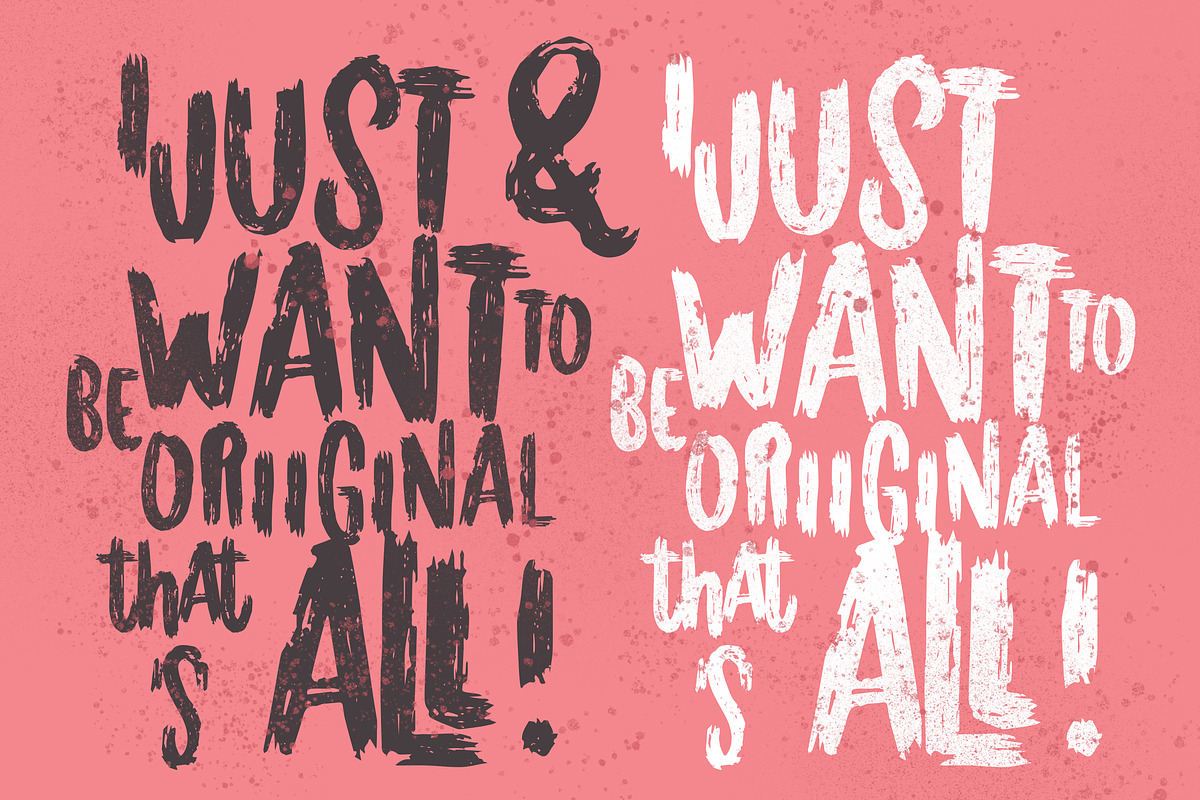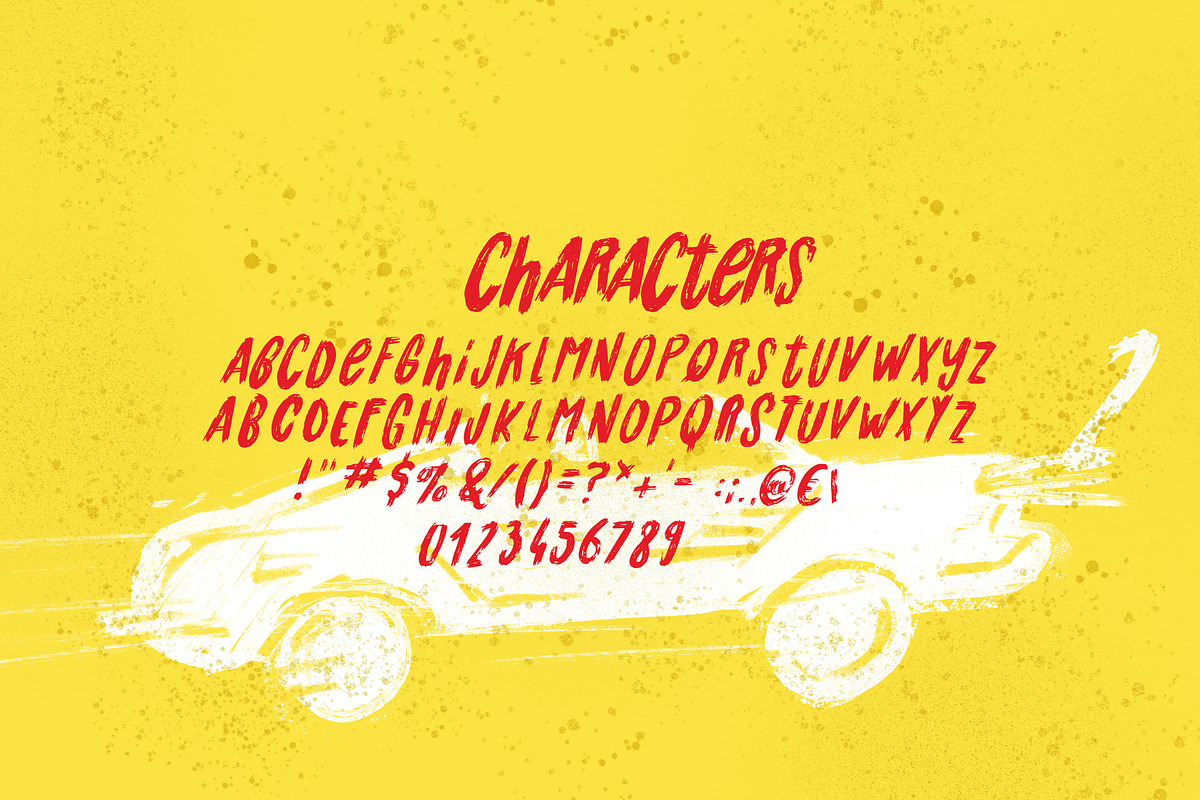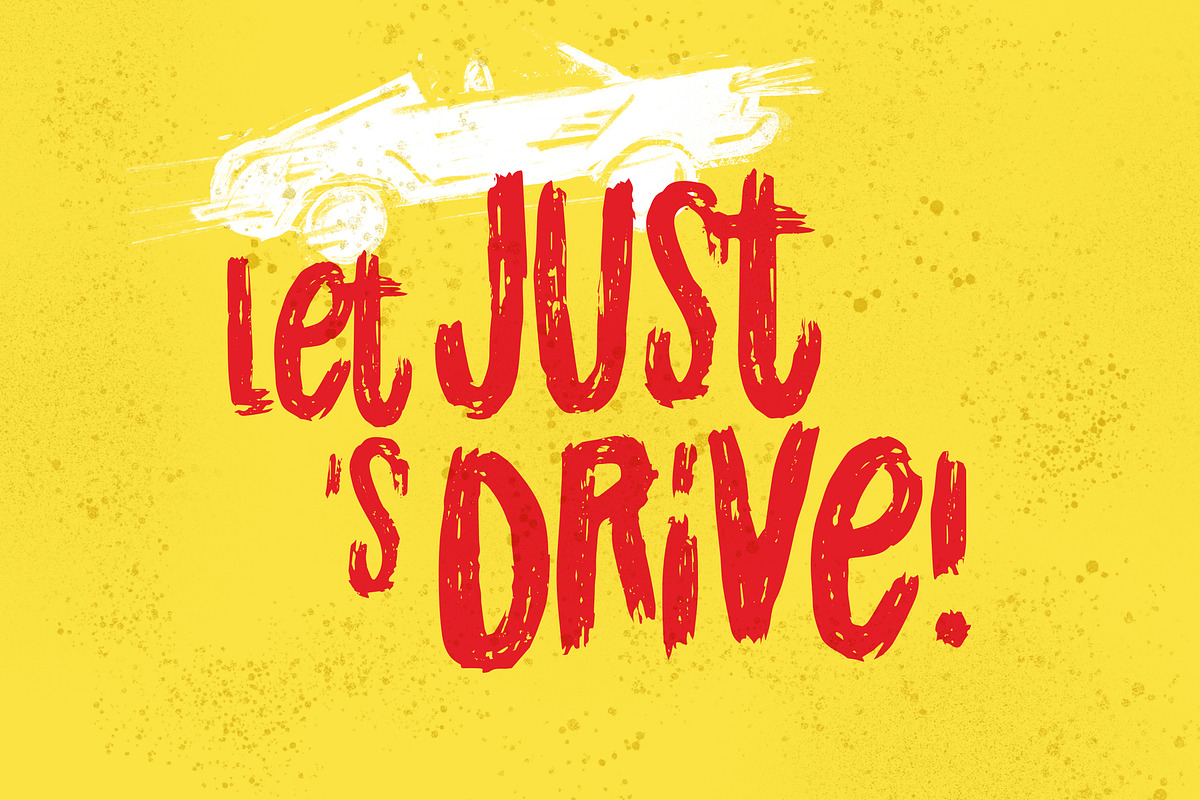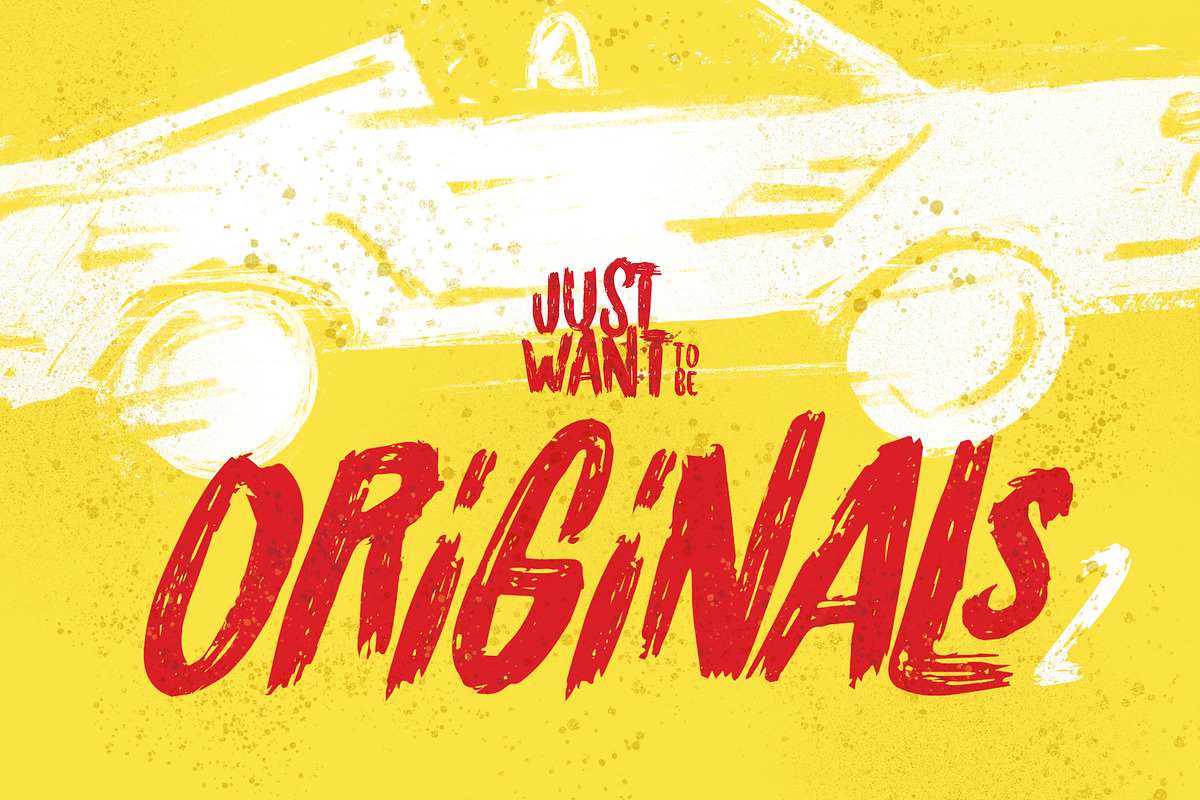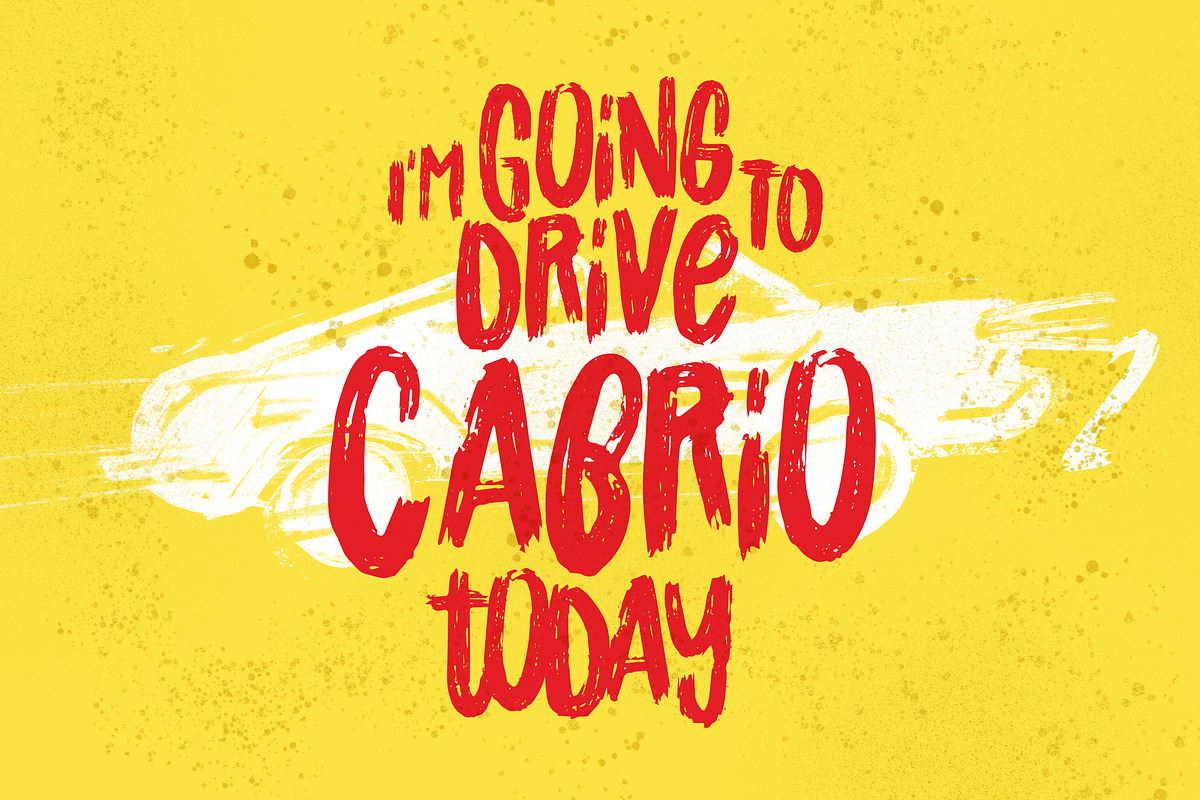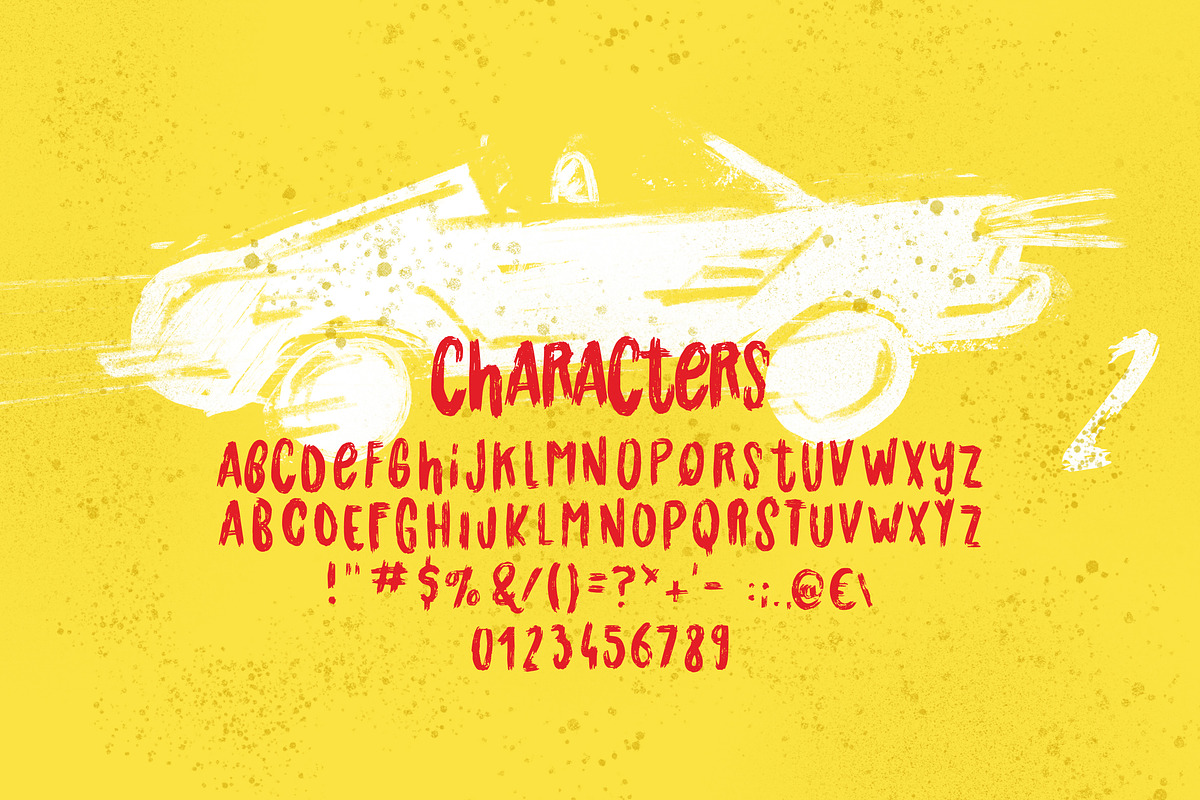
Originals 2 Typeface
This is the completely redesigned version of the all caps typeface Originals.
Originals 2 Typeface is a handdrawn playful display font. Including all US glyphs and it comes in regular, slant and bllured version.
The font can be used for many purposes but looks great when put on signs, shirts or cards. Also, it works perfect on fresh summer theme designs or comic style designs.
Originals 2 (OTF) -Hand brushed font including all uppercase letters which has a complete set of A-Z, and support for US glyphs letters. Combinate uppercase and lowercase letters to get interesting text styles.
Originals 2 ITALIC (OTF) -18° slant / italic hand brushed font including All Caps letters which has a complete set of A-Z, and support for US glyphs letters.